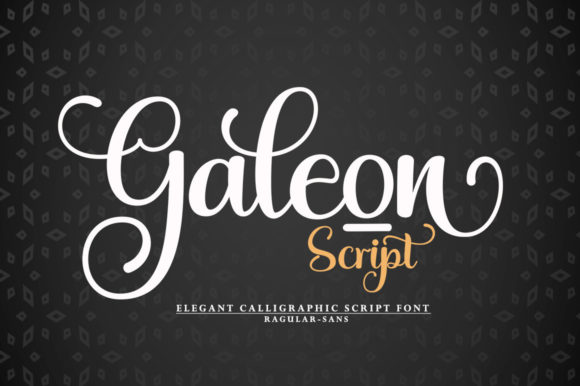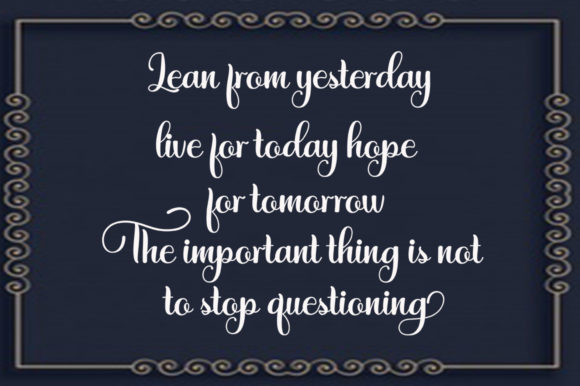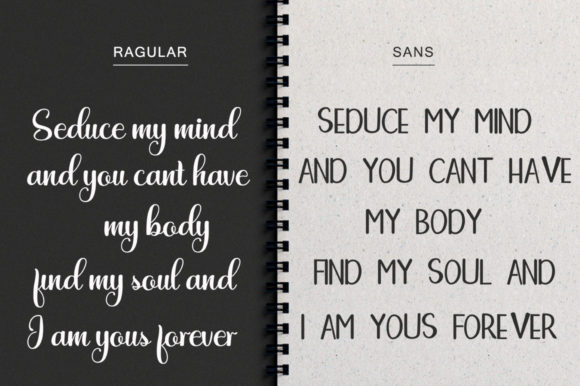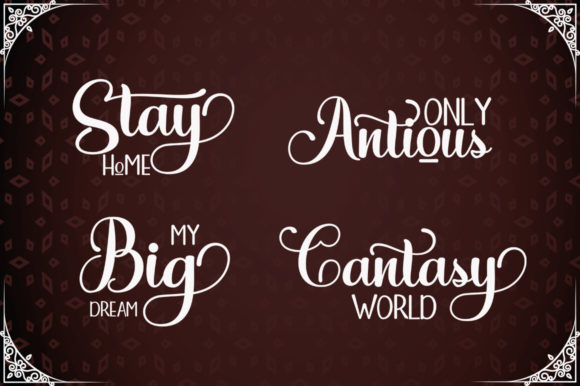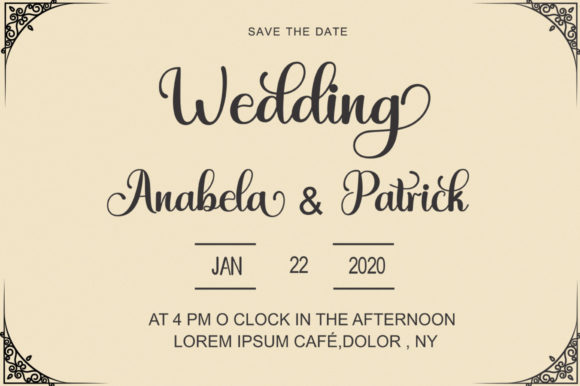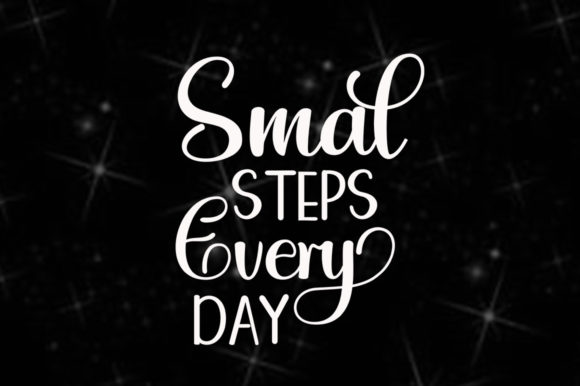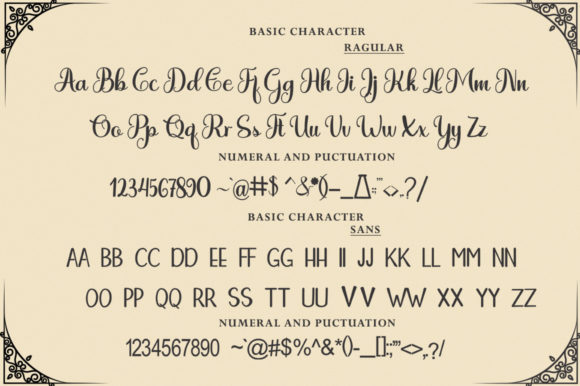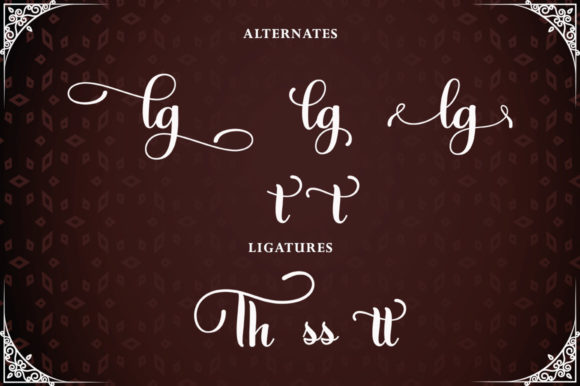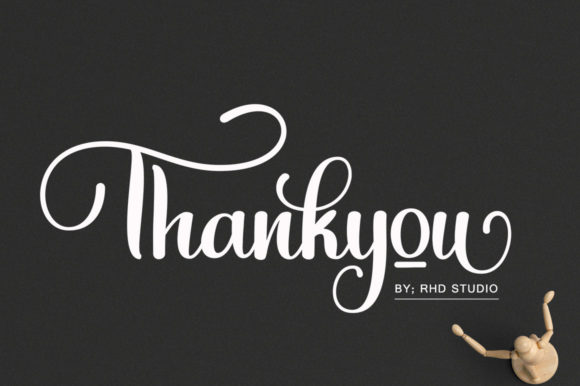
Galeon Script Font
About Galeon Script Font
Galeon Script is a beautiful duo font that combines a sans serif and script typeface. With its elegant and versatile style, this font is sure to make your designs stand out. Whether you’re creating logos, branding materials, invitations, or social media graphics, Galeon Script has the flexibility to enhance any project.
The sans serif version of Galeon Script brings a modern and clean look to your designs. Its simple and geometric letterforms provide a strong and professional appearance. This makes it ideal for headlines, titles, and any design element that requires a sleek and contemporary touch.
The script version of Galeon Script is where the charm and elegance truly shine. With its flowing and handwritten style, it adds a touch of sophistication and personality to your text. The cursive nature of the script font creates a sense of movement and grace, making it perfect for invitations, quotes, and feminine-themed designs.
One of the great advantages of Galeon Script is its PUA encoding. This means that you can easily access a wide range of glyphs and swashes, allowing you to customize and embellish your text with decorative elements. This adds even more versatility to the font and opens up endless possibilities for creative expression.
Whether you use Galeon Script individually or combine both the sans serif and script versions, you’ll have the freedom to create designs that are visually captivating and unique. The balanced and harmonious combination of the two fonts ensures that they complement each other seamlessly, giving your designs a professional and cohesive look.
In conclusion, Galeon Script is a lovely duo font that offers a versatile and stylish approach to your designs. With its PUA encoding, you can easily access a variety of glyphs and swashes to customize your text. Let Galeon Script inspire your creativity and elevate your designs to new levels of sophistication and elegance.